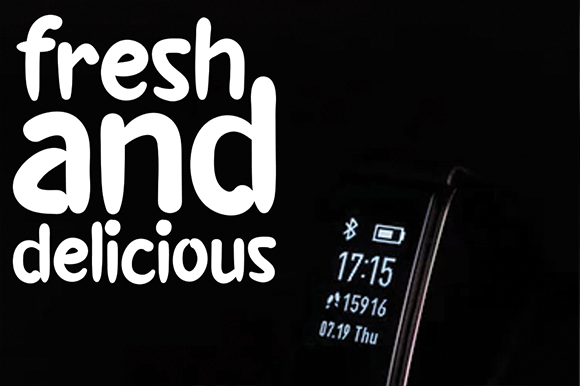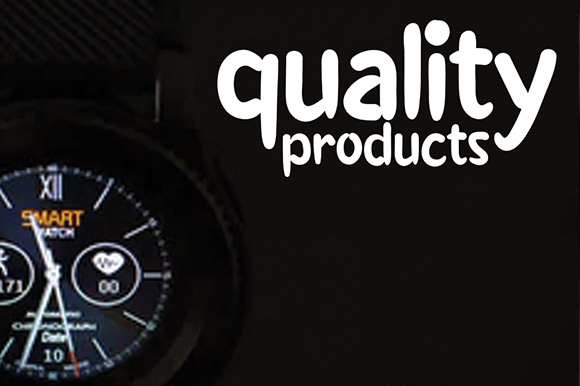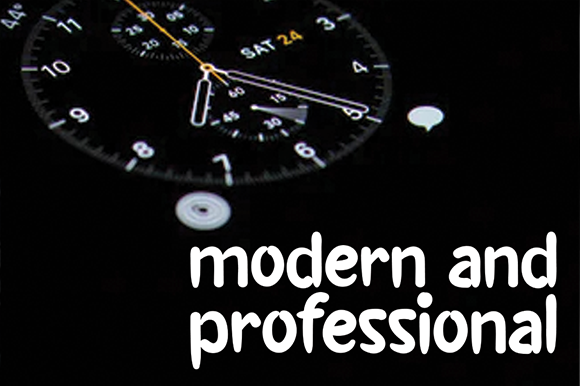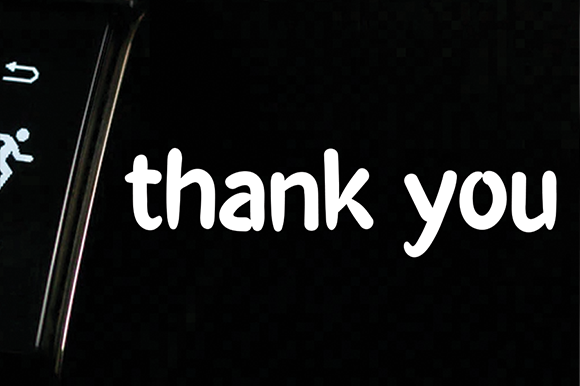
Introduction to Riago Migo Font
Riago Migo is a modern display font, carefully handcrafted to become a true favorite.
Key Features of Riago Migo Font
Why Choose Riago Migo Font?
Riago Migo Font offers exceptional quality and versatility, making it a valuable addition to your design toolkit. Whether you’re creating for personal projects or commercial use, Riago Migo Font delivers professional results.